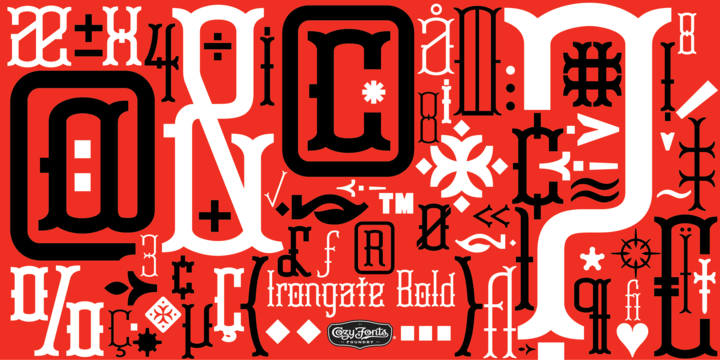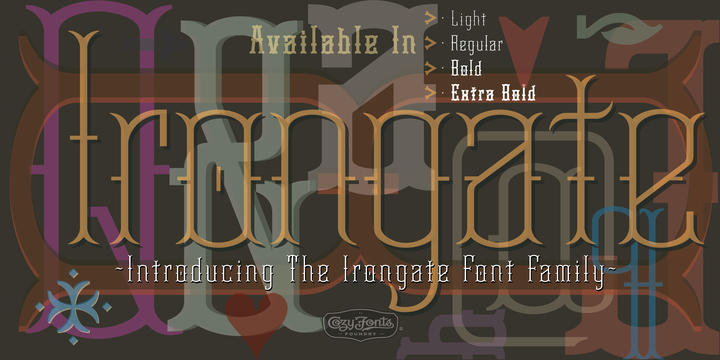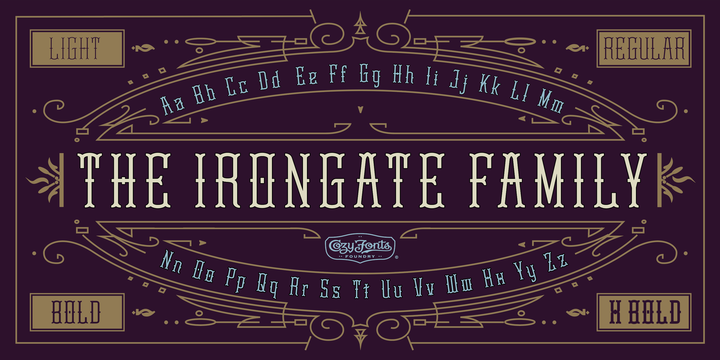
The Irongate Font Family has a retro personality. The common denominators, in all the glyphs, is a blunt center serif. The main top & bottom of each Cap & lower case glyphs have fan serifs, yep serifs that fan out.
This fonts influence is based on a monogram I designed for my daughters wedding where she described her image of the event being Classic with a Vintage Flair.
Irongate can be pictured on many things dated from 1918 - 2018. The font is available in 4 basic weights Light, Regular, Bold & Extra Bold. An additional pdf is included that gives the code for an additional 14 Dingbats, with each weight.
More Irongate works extremely well with Invites, Stationary, Signage, Embroidery, Letterpress, Ads, Logos and anything that feels Industrial or Hand-Crafted, eg.
Coffee, Breweries, Antiques, Woodcuts, Western Styles, Sports Styles, etc.